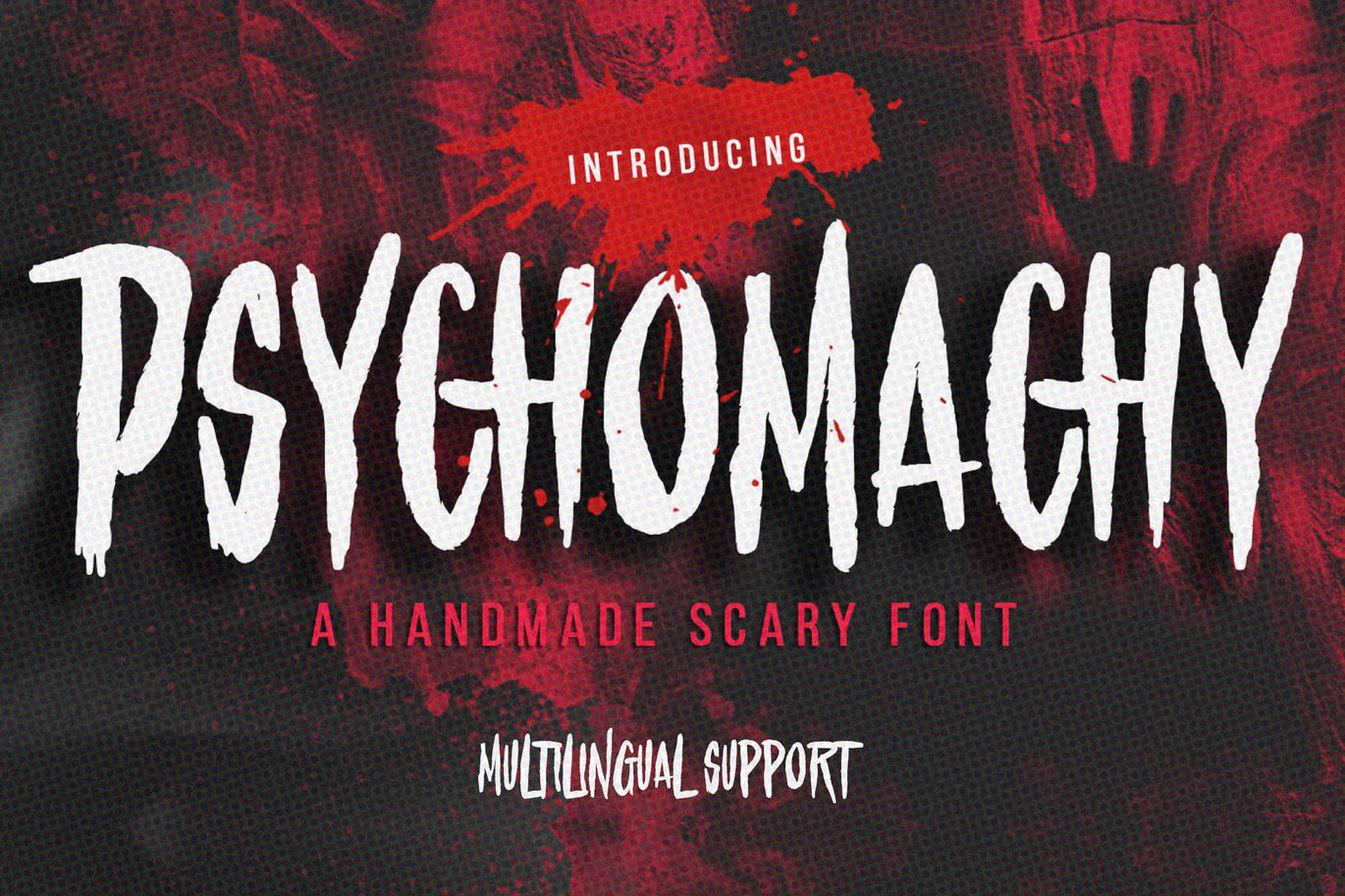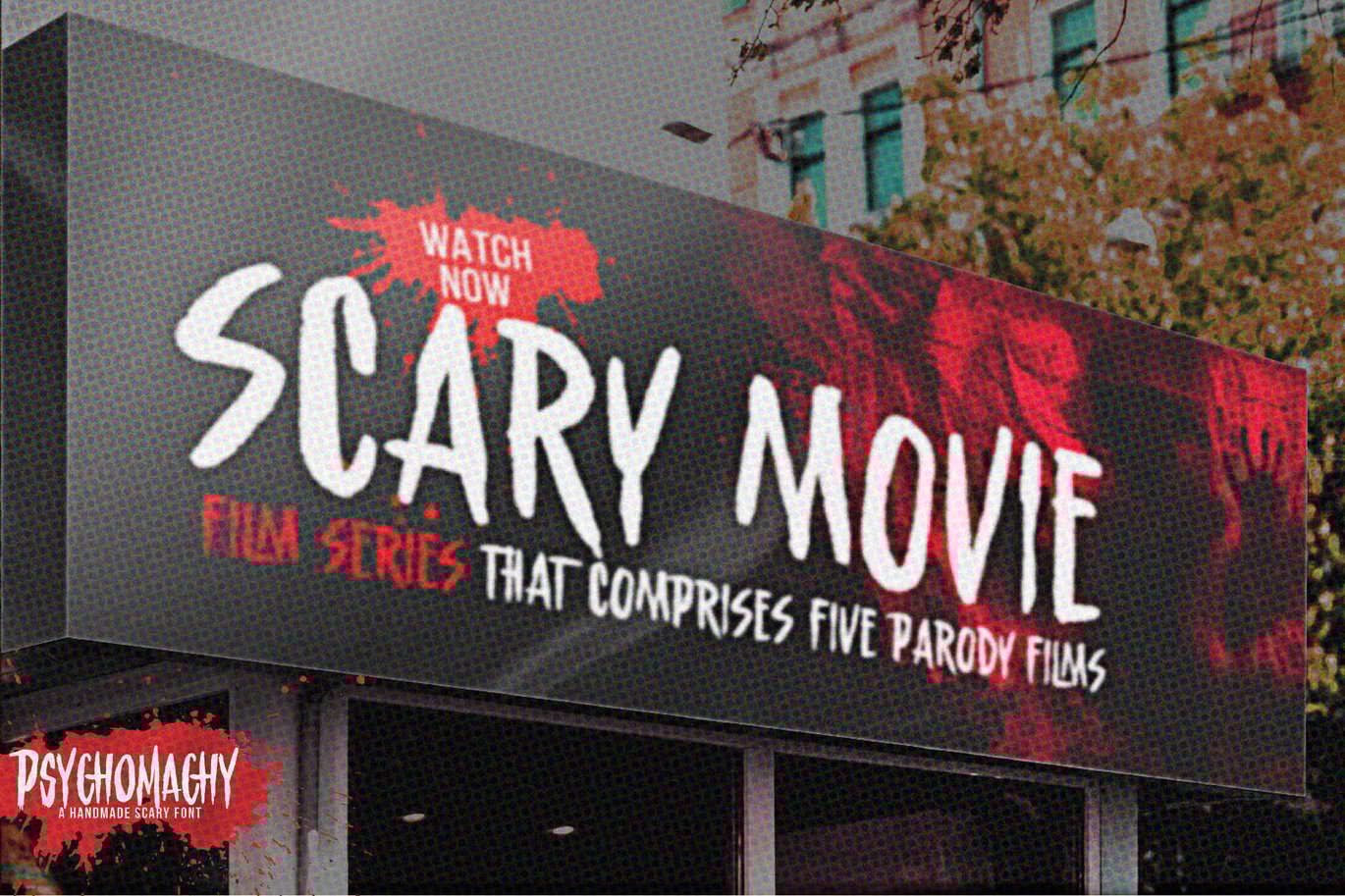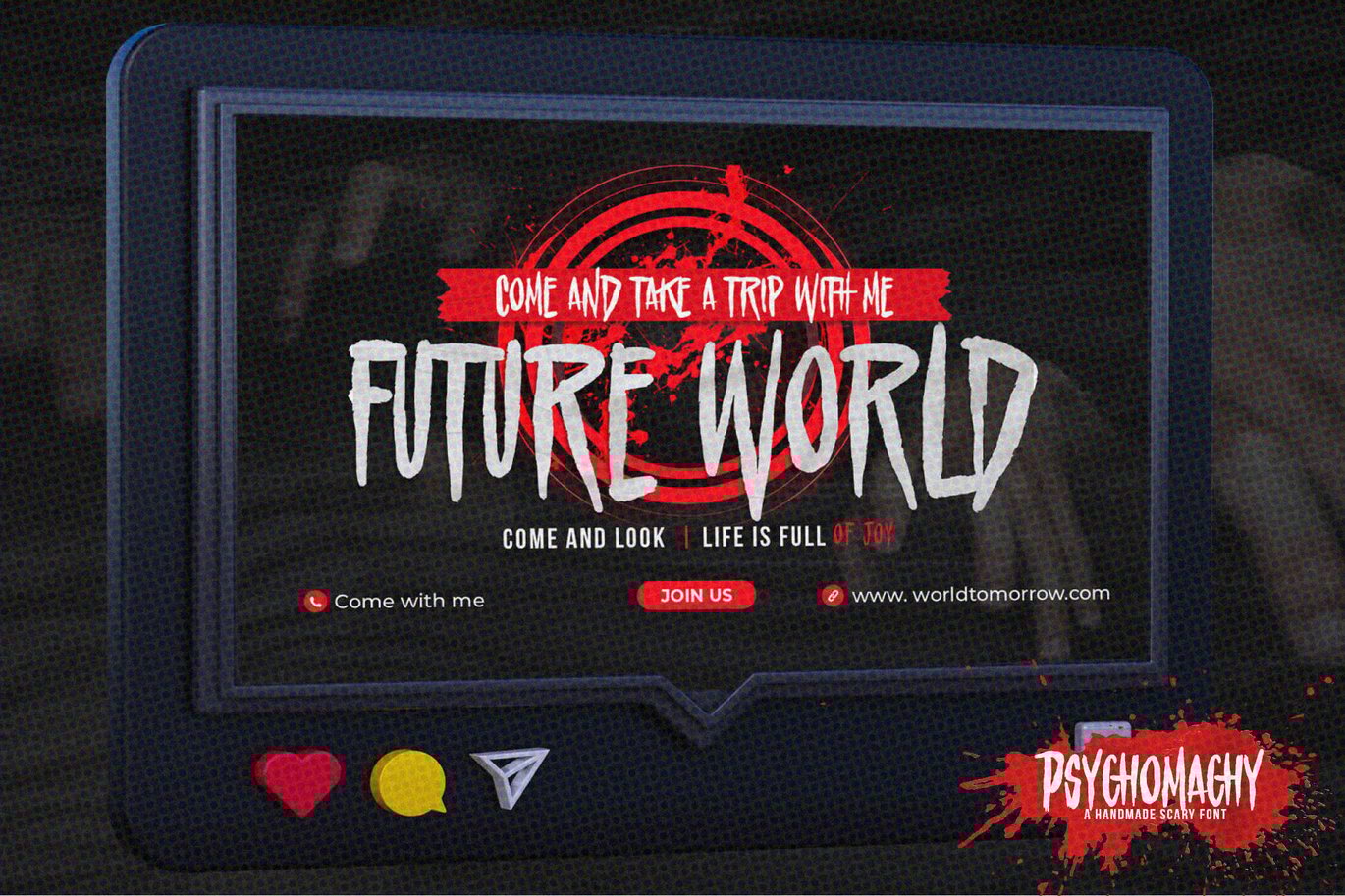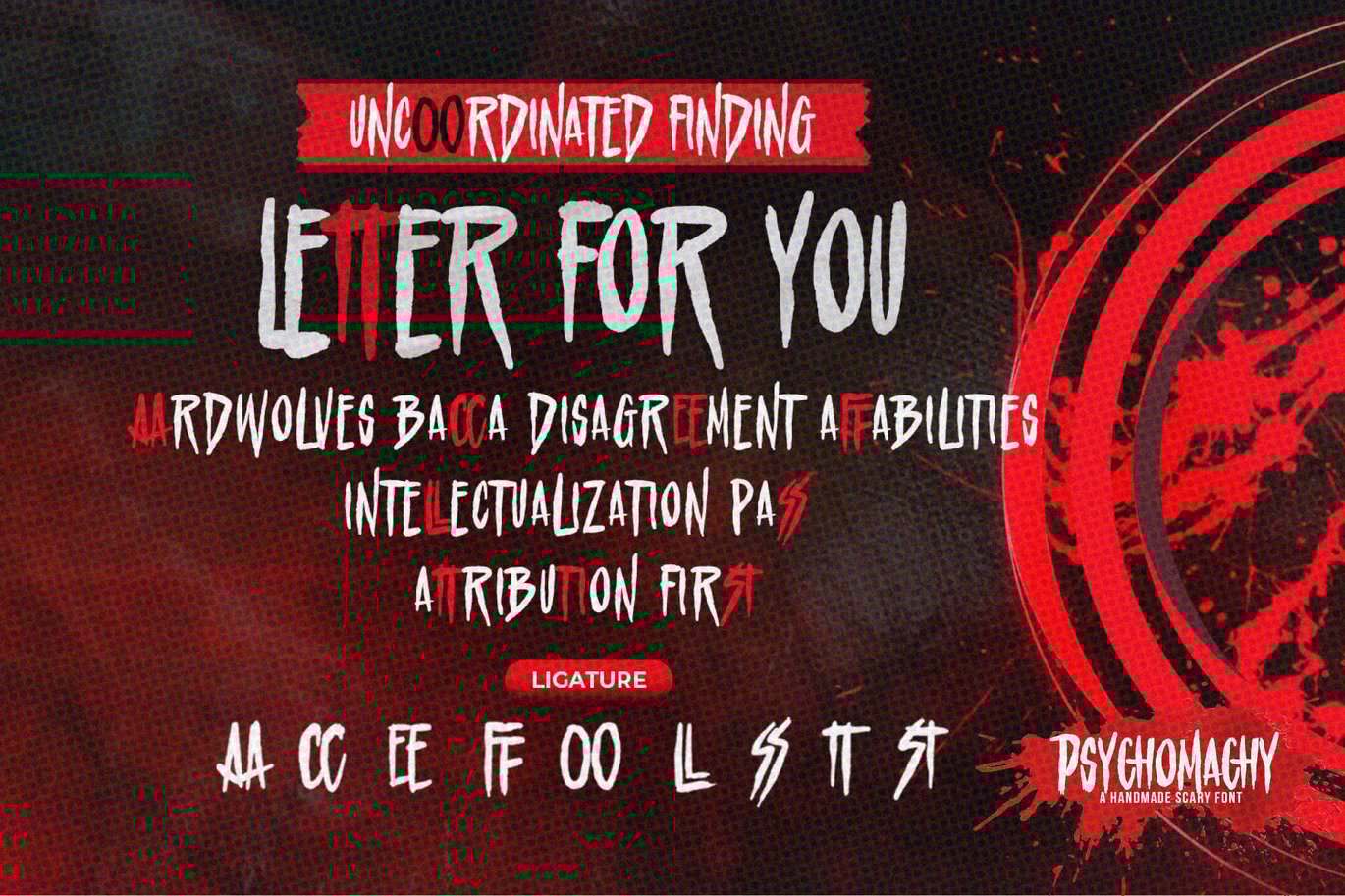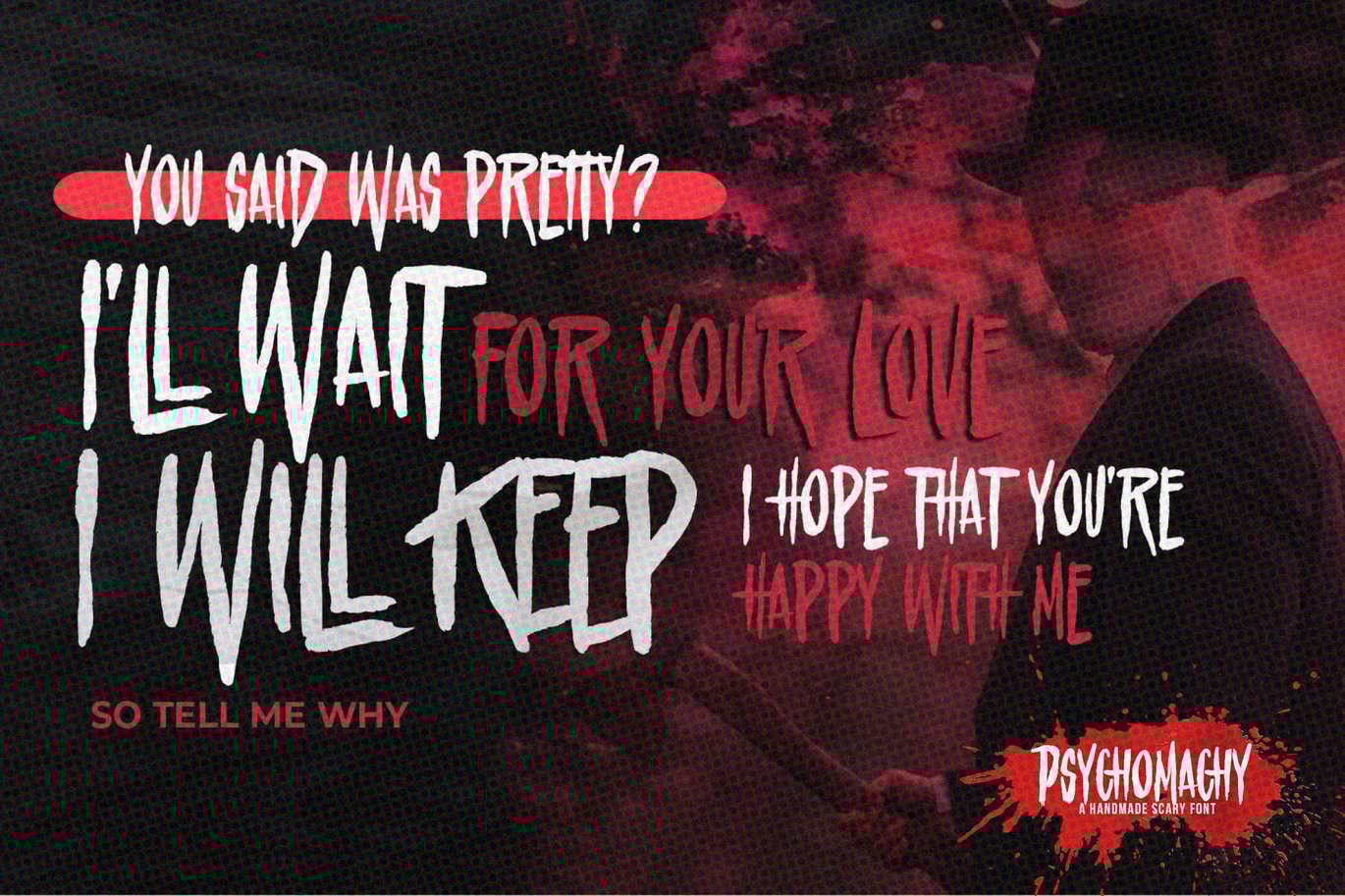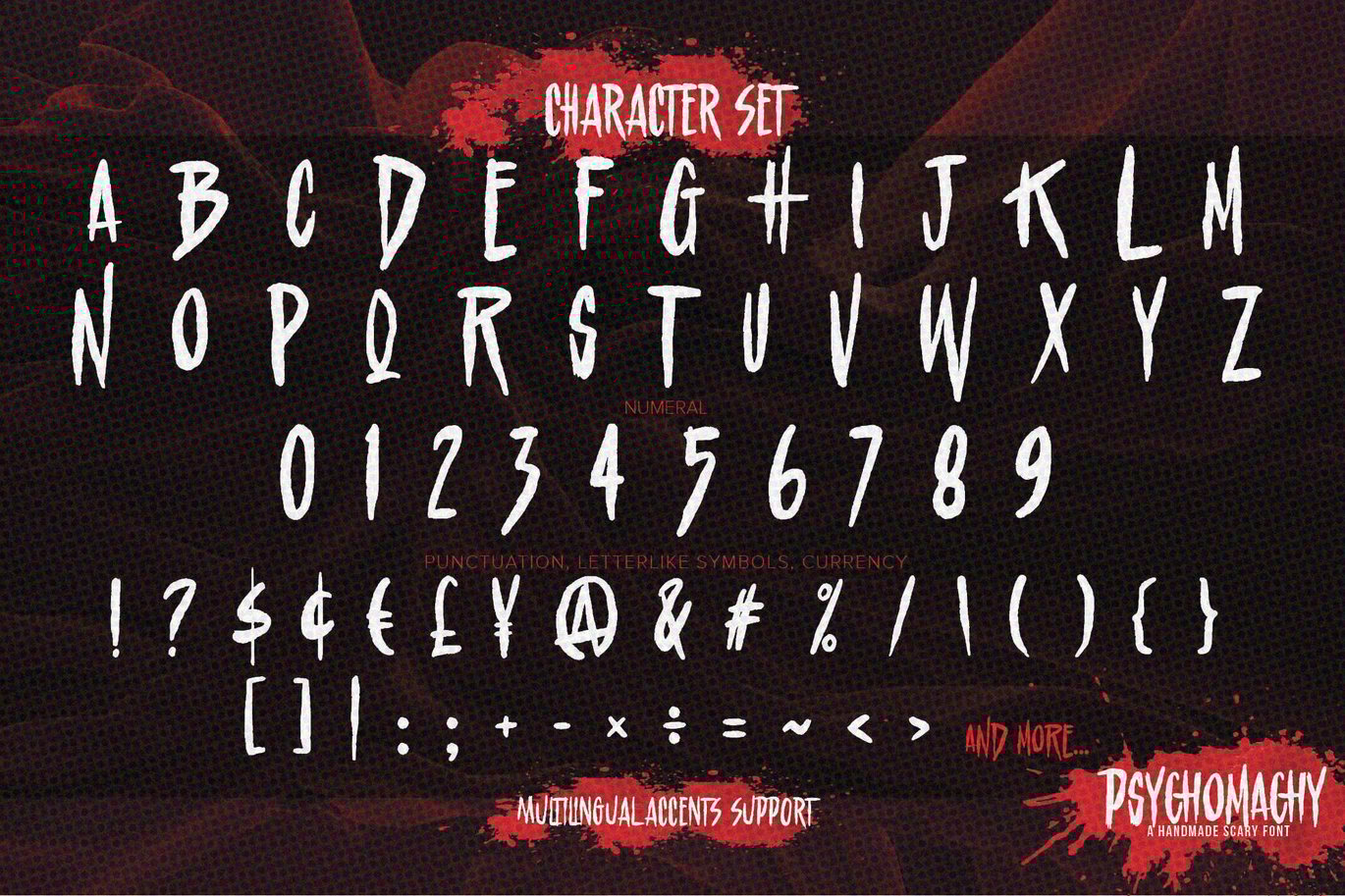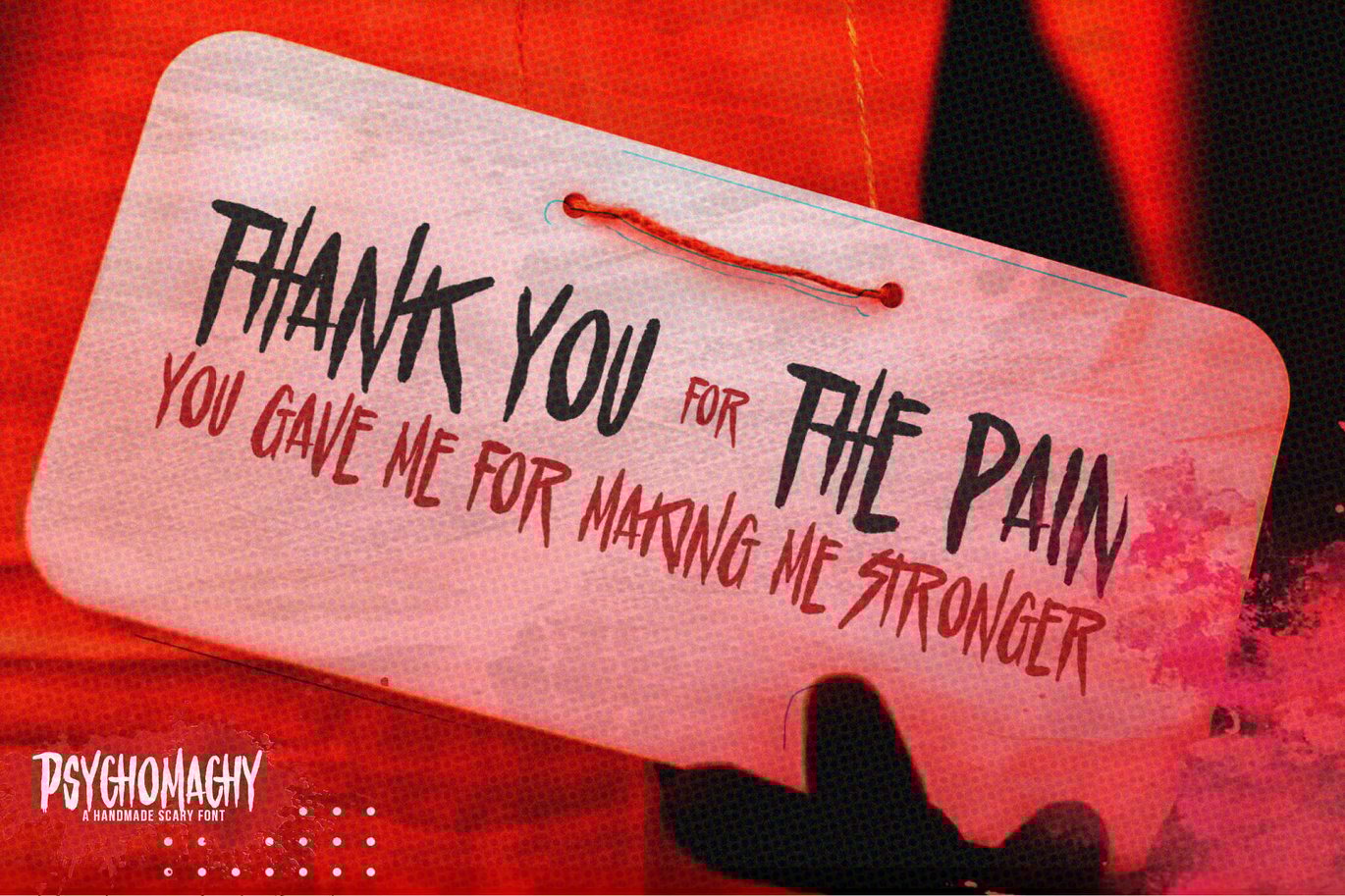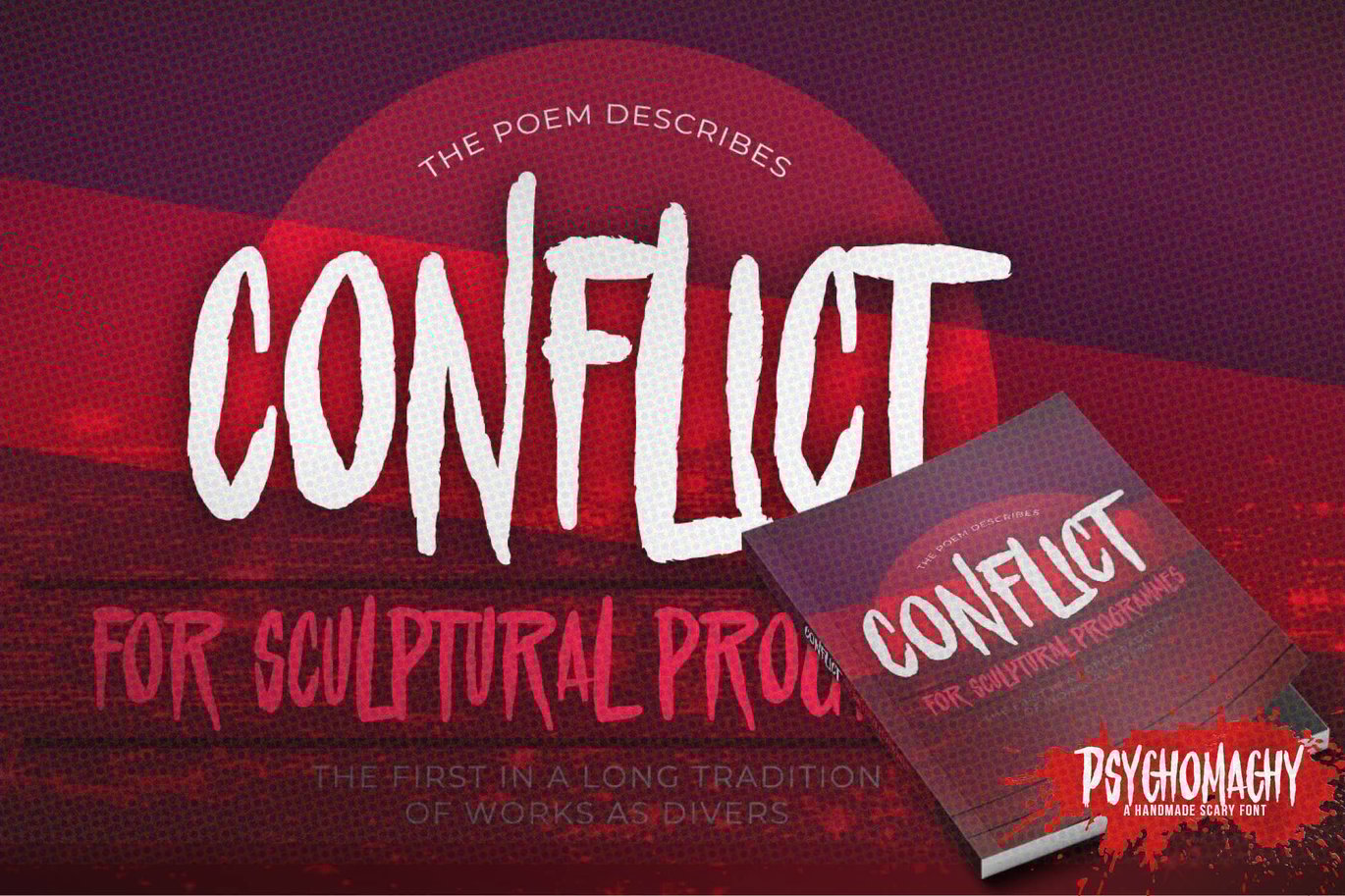
Psychomachy – Handmade Scary Font
Introducing of our new product Psychomachy Handmade Scary Font with ligature and Multilanguage support.Introducing of designs look modern, unique and fun. It’s perfect for labels, quotes, posters, DIY projects, branding, packaging, greeting cards, websites, photography overlays, signs, window art, scrapbooking, tags and so much more!our new product that inspired by Street Tagging, graffiti style with a fun theme very good for graffity poster, flyer, childrenbook, cartoon, comic etc .
- Ligature glyphs